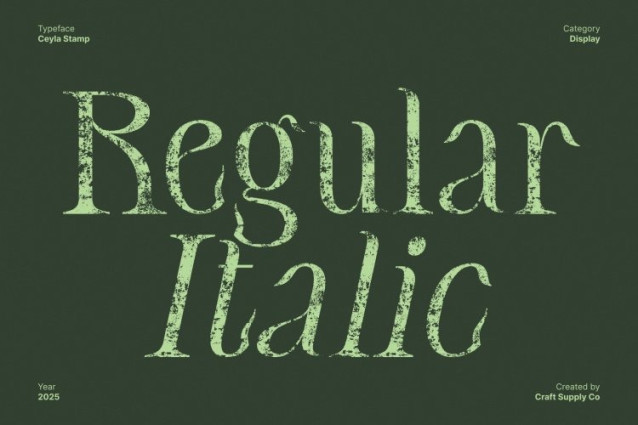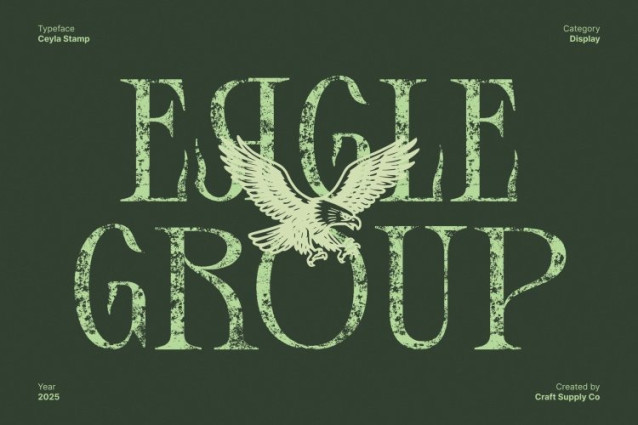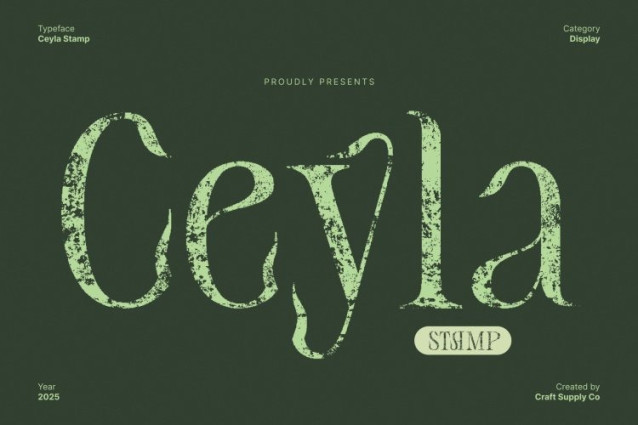
Ceyla Stamp Font
Ceyla Stamp Font This is a beautifully crafted Art Nouveau display serif font that blends expressive curves with refined elegance. Its whimsical letterforms capture the flowing, organic aesthetic of vintage Art Nouveau typography, while the added stamp effect introduces raw texture and handcrafted character.
Textured Stamp Effect for Authentic Craftsmanship
The signature stamp effect elevates this font with an imperfect, hand-pressed texture, adding depth, warmth, and authenticity to every character. This tactile effect enhances its vintage impression, making the font look naturally aged and artistically crafted.
A Unique Serif Concept for Modern Creativity
Combining serif structure with Art Nouveau influence, this font achieves an innovative look that bridges classic design with modern artistry. Its serif elements add stability, while its flowing curves introduce motion and elegance. This harmony creates a versatile display font suited for designers who appreciate tradition but want a creative, unconventional twist.
Perfect for Vintage Luxury and Artistic Displays
This font thrives in design projects that require dramatic flair and vintage sophistication. It is perfect for luxury branding with an old-world theme, artistic posters, editorial titles, boutique logos, packaging, and nostalgic visual identities. Whether you’re crafting vintage-themed layouts or expressive creative posters, Ceyla Stamp brings a rich, decorative personality that elevates every composition with style and texture.